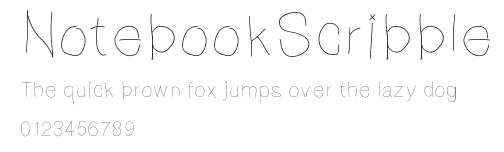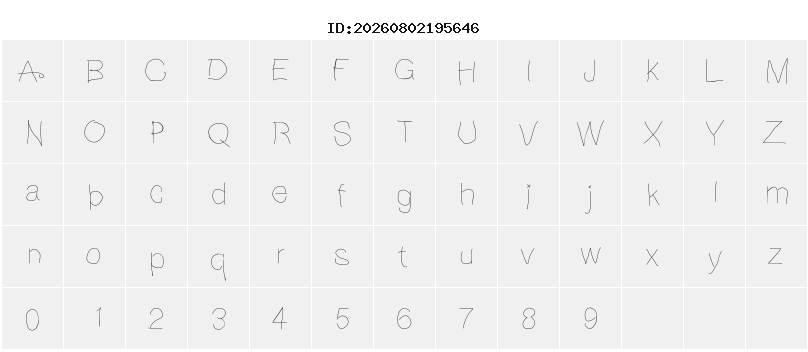
• Font Name: NotebookScribble
About NotebookScribble.ttf
NotebookScribble.ttf is a modern, elegant sans-serif font designed for ultimate readability and visual harmony. Perfect for branding, headlines, web design, and print materials.